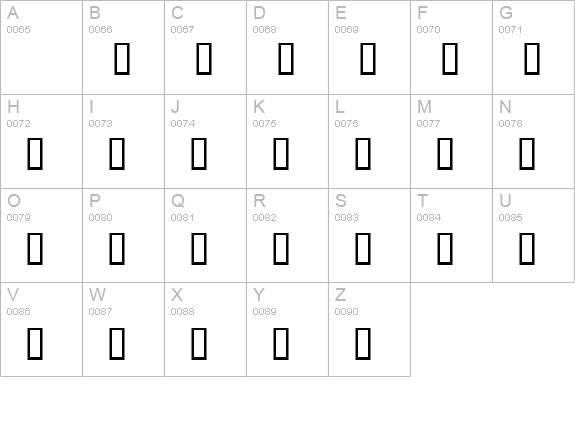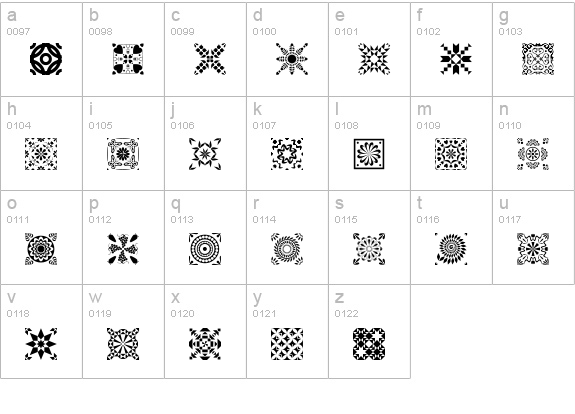
Quilter's Delight Font Details
Quilter's Delight font is a charming and versatile typeface that will add a touch of elegance and sophistication to any project. Whether you're a professional graphic designer or a passionate hobbyist, this font is sure to become your go-to choice for creating stunning designs. With its delicate and intricate letterforms, Quilter's Delight font captures the essence of handmade craftsmanship. Each character is meticulously designed to resemble the careful stitches of a quilt, creating a visually pleasing texture that is both unique and captivating. The versatility of Quilter's Delight font allows it to be used in a wide range of applications. Whether you're designing wedding invitations, branding materials, or crafting beautiful typography for your website, this font will effortlessly enhance your work and make it stand out from the crowd. One of the best parts about Quilter's Delight font is that it is freely available to download at FontsMarket.com. This means that you can easily access this amazing font without any cost or hassle. Simply visit FontsMarket.com, search for Quilter's Delight font, and start using it in your projects right away. So why wait? Embrace the beauty and elegance of Quilter's Delight font and let your creativity soar. Download it for free at FontsMarket.com and discover the endless possibilities that this font holds for your designs. Whether you're a quilter, a designer, or simply someone who appreciates the art of typography, this font is a must-have addition to your collection.